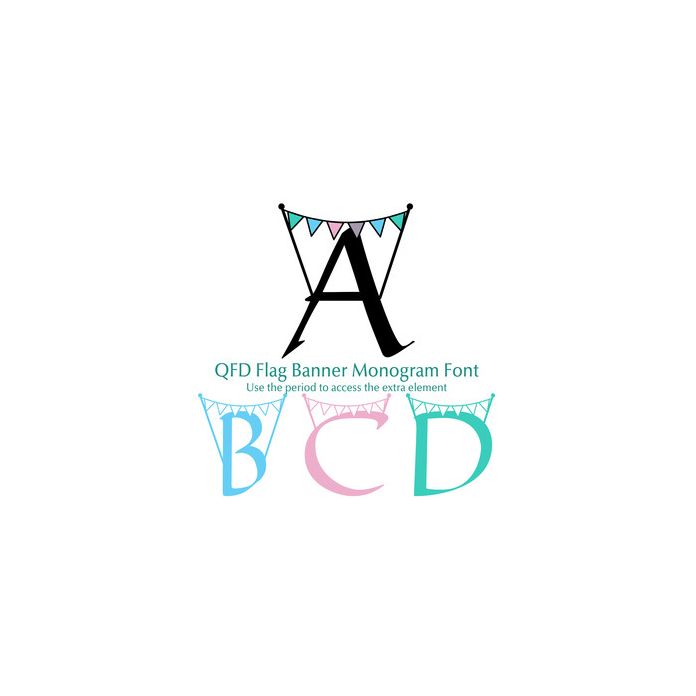
Fill in the flags with a name or date or special message! Combine this fun font with the other QFD Monogram fonts! See our detailed monograms tutorial by clicking the Instructions button. By releasing the compound path of the extra element, you can give each flag a different colour.
To access the extra element, use the period.